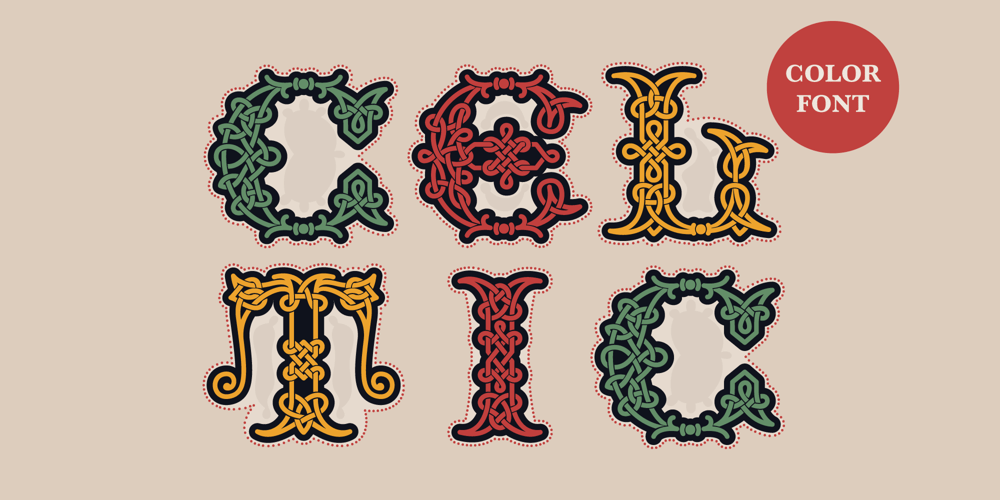
Celtic Nova Font Family was designed by Roman Korolev and published by Kaer. Celtic Nova contains 4 styles and family package options. Hi! Celtic Nova font is available. The font is presented in regular and color versions. This is a new classic Celtic font with spirals and knots. Celtic Nova font is perfect for printing of graphic arts, posters, packaging and t-shirts. The font is given in regular and colored versions.*You can use color fonts in PS since CC 2017, AI since CC 2018, ID since CC 2019, QuarkXPress since 2018, Pixelmator, Sketch, Affinity Designer Since macOS 10.14 Mojave, Paint.NET Windows only.**Please note that the Canva doesn’t support color fonts!*You’ll get:* A-Z letters * NumbersIf you have any questions or issues, please contact me: kaer.pro@gmail.com Best, Roman.